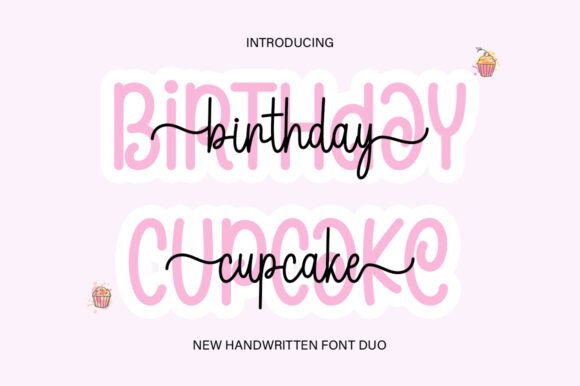
Introducing the Birthday Cupcake Duo Font: A Stylish and Delicate Pair for Your Creative Projects
Are you looking for a font that can add a romantic touch to your creations? Look no further than the Birthday Cupcake Duo font! This beautiful duo font, consisting of a sans serif and script font, is perfect for a wide range of applications, from greeting cards to headlines. In this article, we’ll take a closer look at the features and benefits of the Birthday Cupcake Duo font and explore how it can elevate your designs.
What is the Birthday Cupcake Duo Font?
The Birthday Cupcake Duo font is a carefully crafted duo font that combines a sans serif font with a beautiful script font. This pairing allows you to create stunning text combinations that are sure to impress. The sans serif font provides a clean and modern look, while the script font adds a touch of elegance and sophistication.
Key Features of the Birthday Cupcake Duo Font
- PUA Encoded: The Birthday Cupcake Duo font is PUA (Private Use Area) encoded, which means you can access all of the glyphs and ligatures with ease. This encoding allows you to use the font’s special characters, such as swashes and alternates, without any hassle.
- Sans Serif and Script Font: The duo font includes both a sans serif and script font, giving you the flexibility to create a wide range of text combinations.
- Romantic Touch: The Birthday Cupcake Duo font is designed to add a romantic touch to your creations. Whether you’re designing a greeting card, invitation, or headline, this font is sure to impress.
- Wide Range of Applications: This font is suitable for a wide spectrum of applications, from digital designs to print materials.
Benefits of Using the Birthday Cupcake Duo Font
So, why should you choose the Birthday Cupcake Duo font for your next project? Here are just a few benefits of using this beautiful duo font:
- Elegance and Sophistication: The script font in the Birthday Cupcake Duo pair adds a touch of elegance and sophistication to any design.
- Flexibility: With both a sans serif and script font, you have the flexibility to create a wide range of text combinations.
- Unique and Creative: The Birthday Cupcake Duo font is sure to make your designs stand out from the crowd.
How to Use the Birthday Cupcake Duo Font
Using the Birthday Cupcake Duo font is easy! Here are a few tips to get you started:
- Pair the Fonts: Pair the sans serif font with the script font to create stunning text combinations.
- Add a Romantic Touch: Use the Birthday Cupcake Duo font to add a romantic touch to your designs, whether you’re creating a greeting card, invitation, or headline.
In conclusion, the Birthday Cupcake Duo font is a stylish and delicate duo font that’s perfect for a wide range of applications. With its PUA encoding, sans serif and script font, and romantic touch, this font is sure to elevate your designs. Whether you’re a designer, artist, or DIY enthusiast, the Birthday Cupcake Duo font is a great addition to your font library.
- What is the Birthday Cupcake Duo font? The Birthday Cupcake Duo font is a duo font that combines a sans serif font with a script font.
- What types of projects can I use the Birthday Cupcake Duo font for? The Birthday Cupcake Duo font is suitable for a wide range of applications, from greeting cards to headlines.